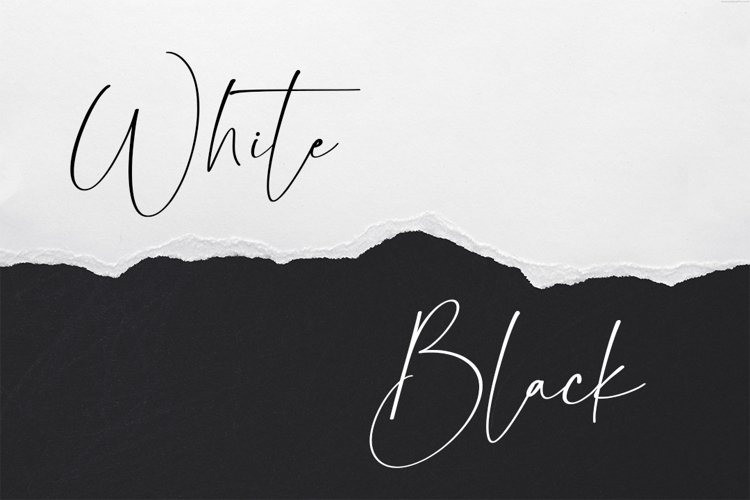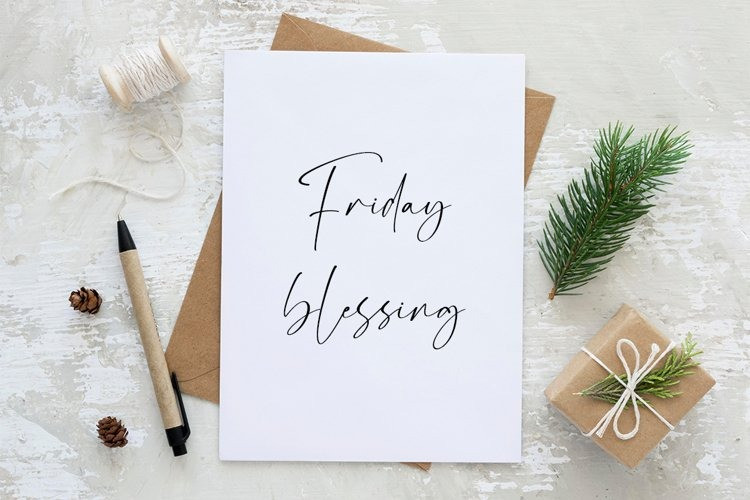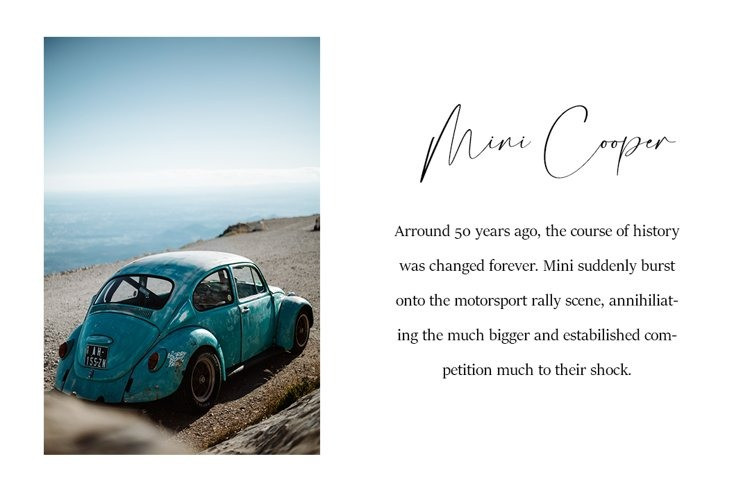
Romantica Handwritten Font
This script is a delicate, elegant and Feminine signature typeface with curves and strokes equipped with standard ligatures like your own handwriting, perfect for your DIY designs such as business cards, wedding invitations, youtube videos, etc.